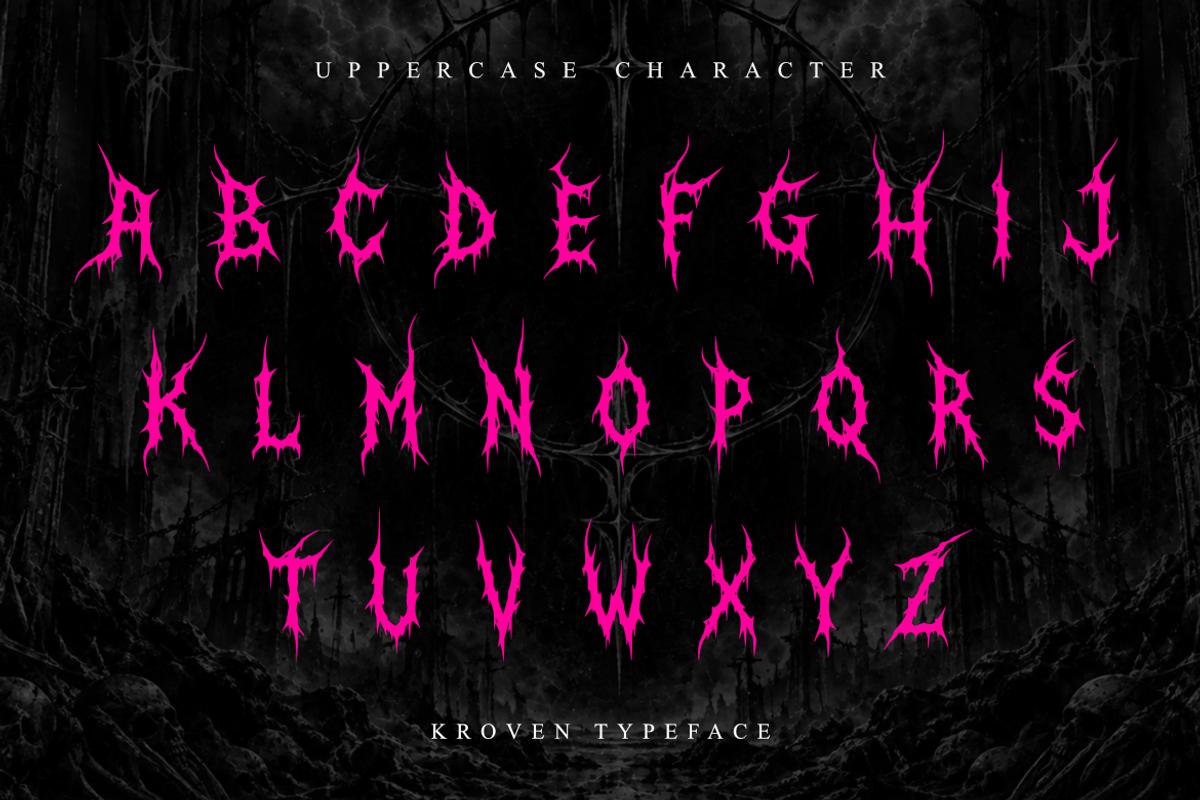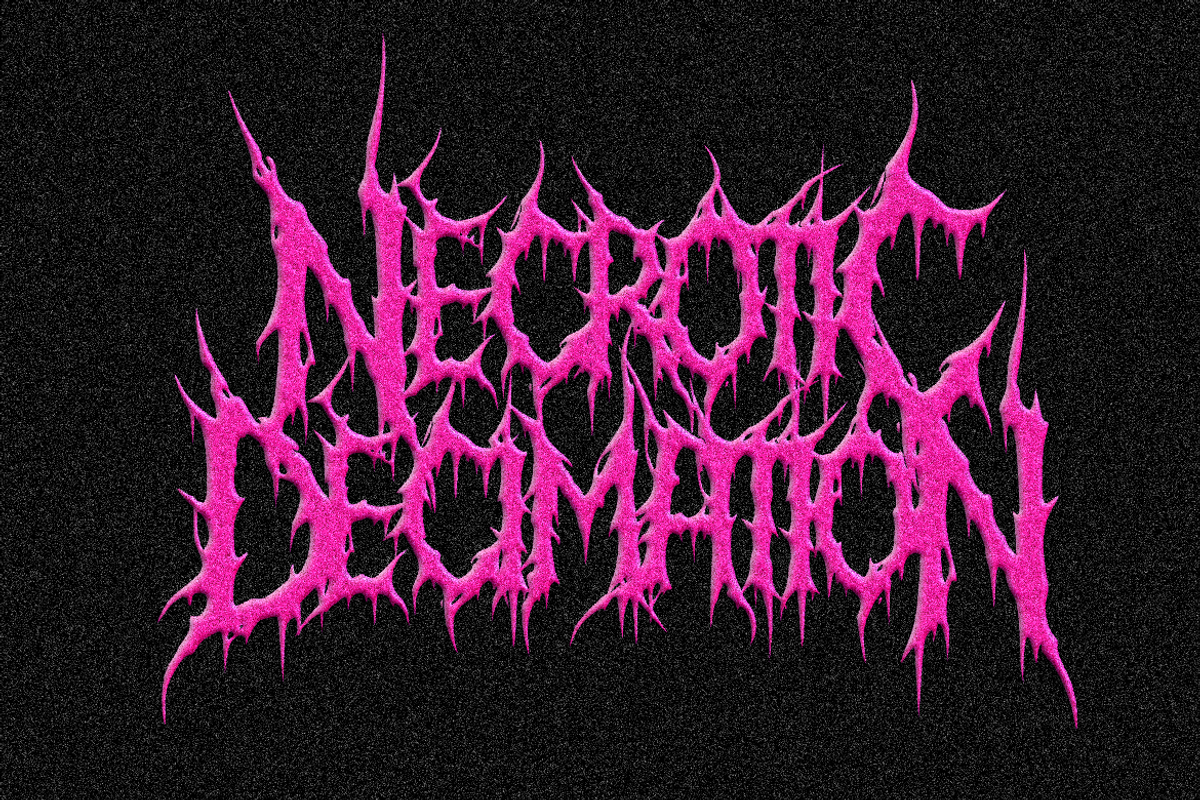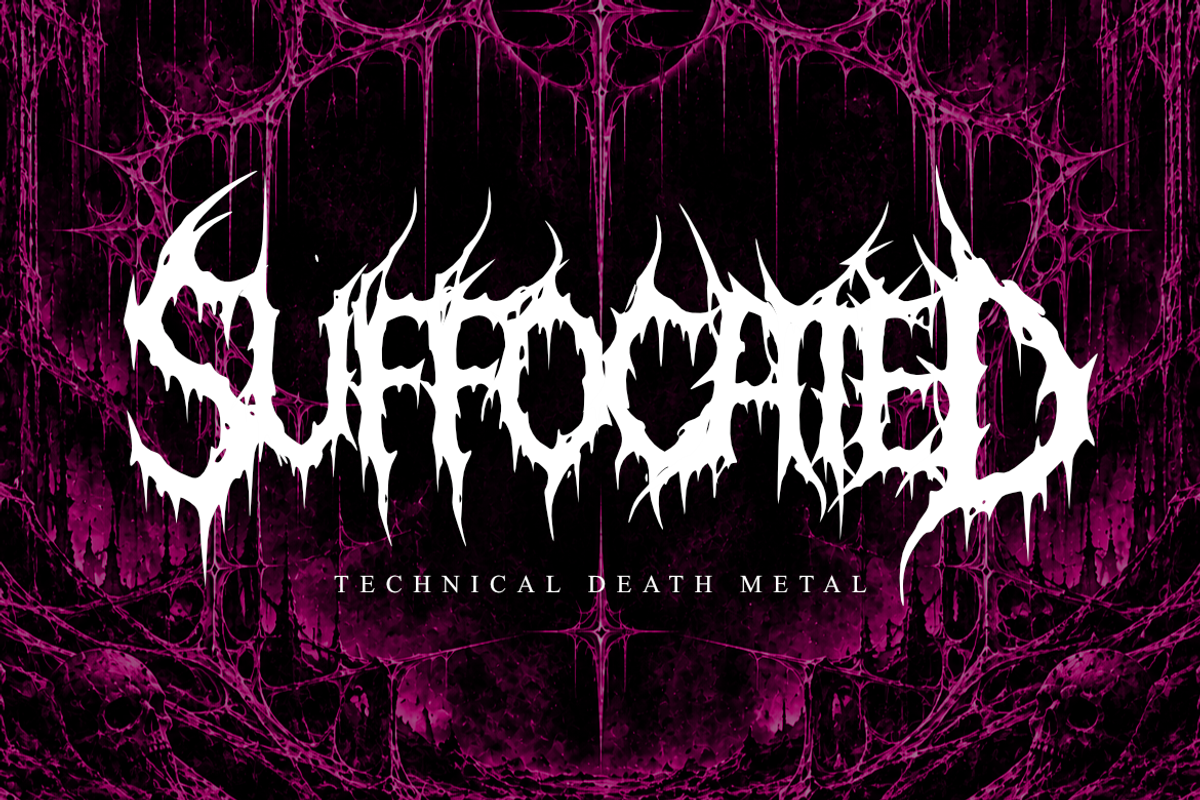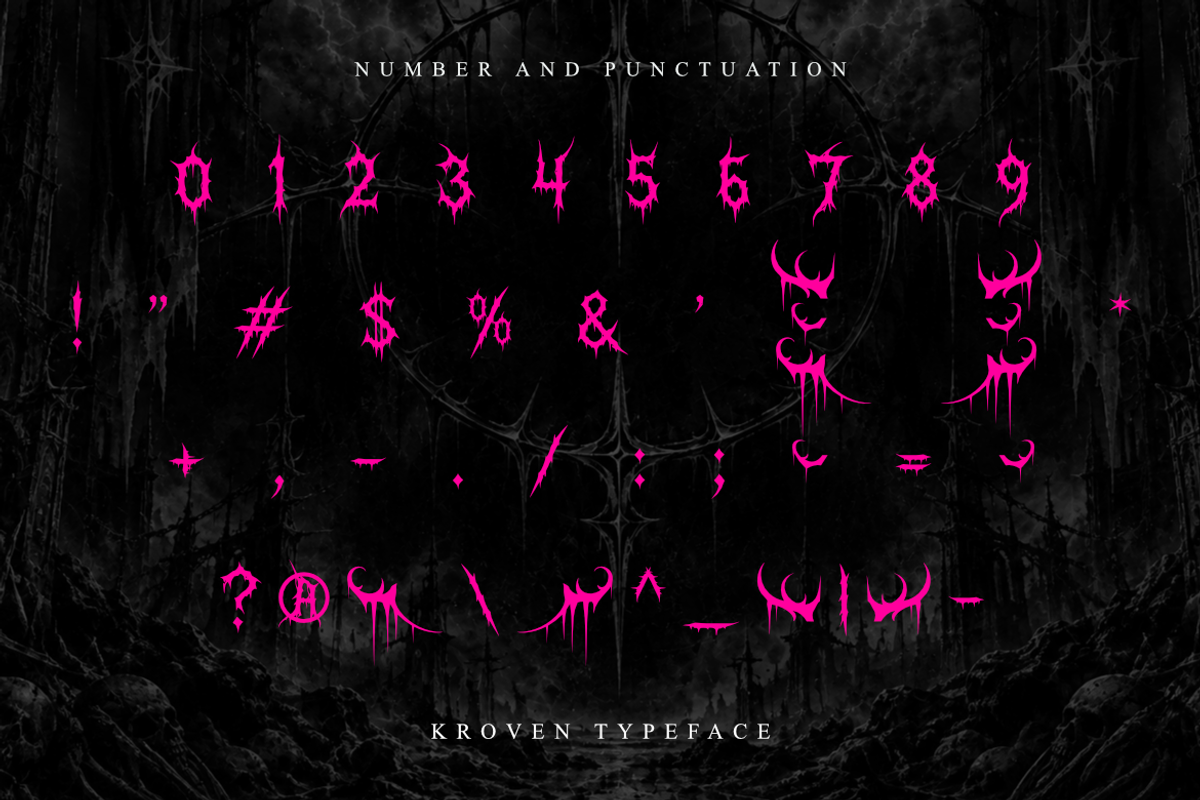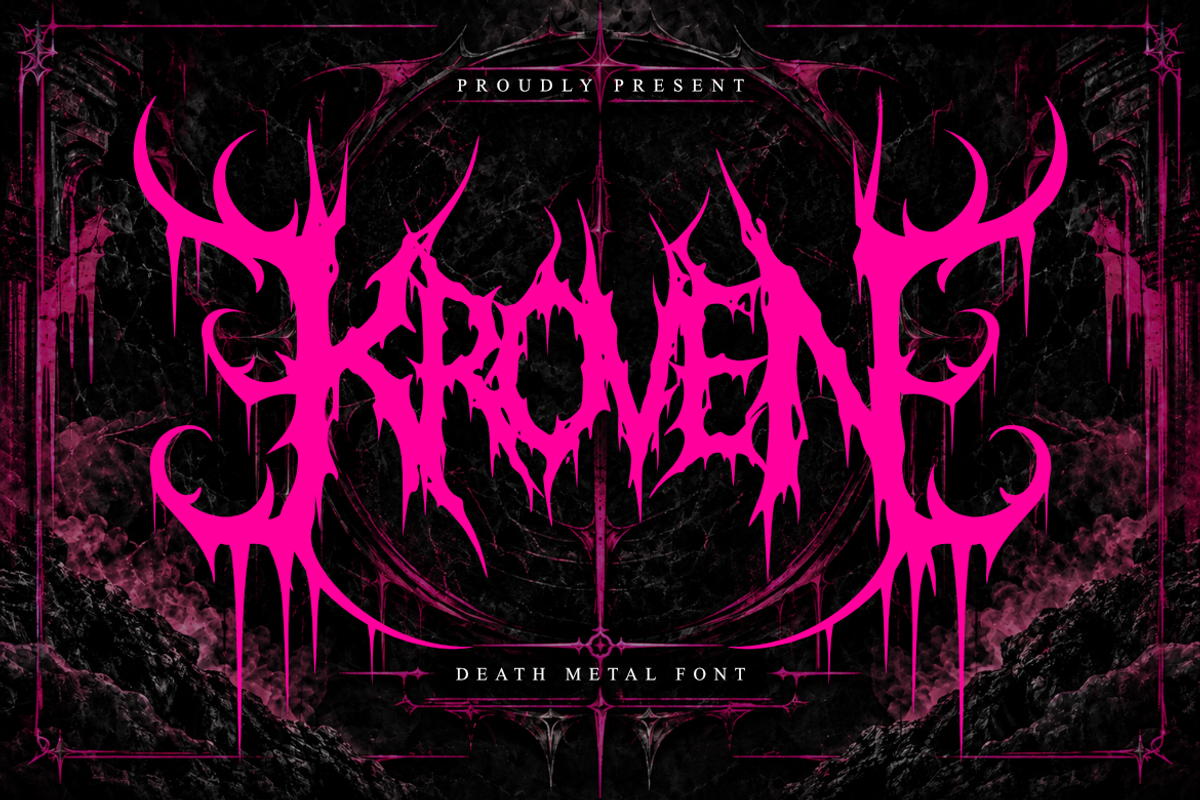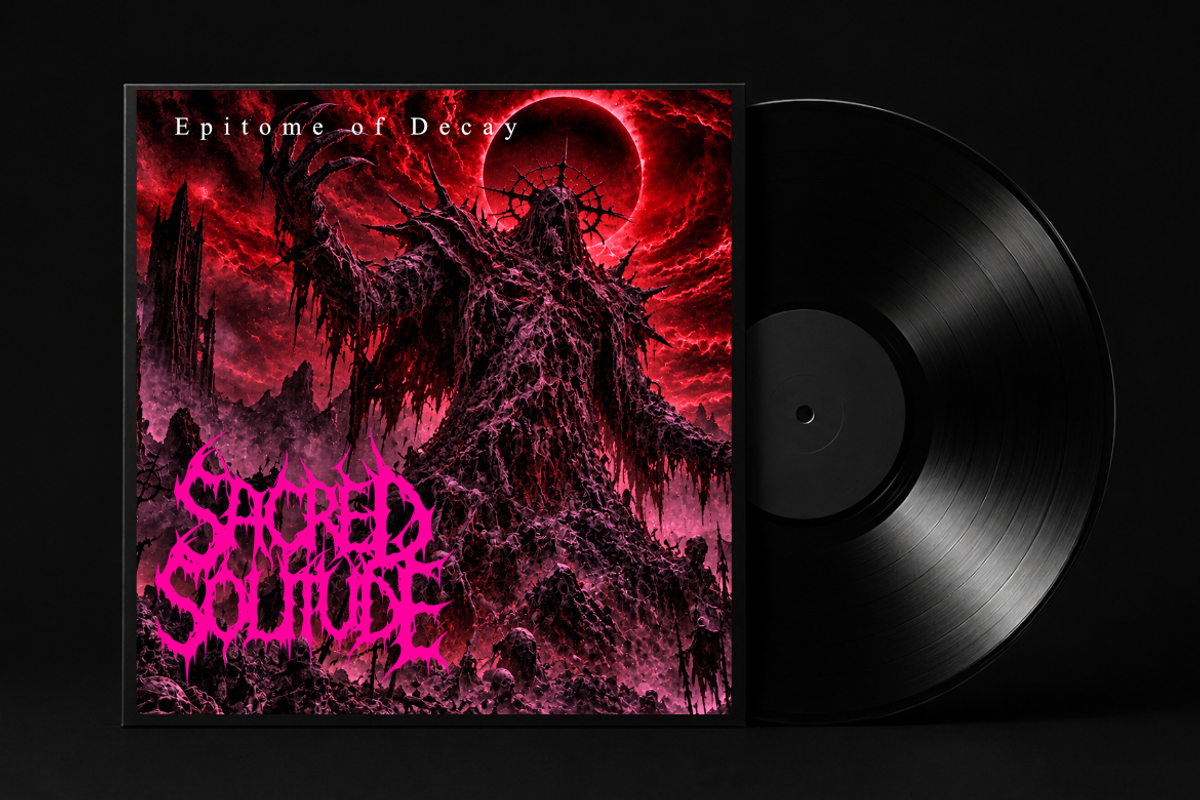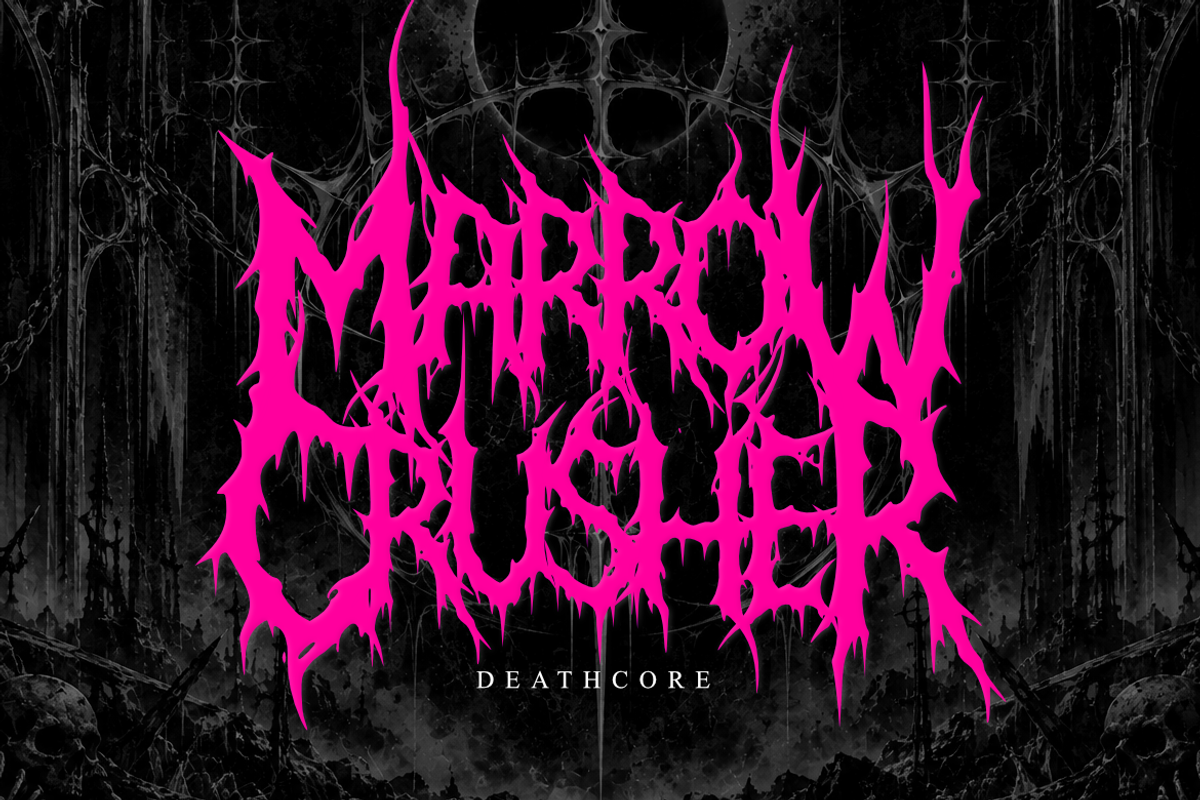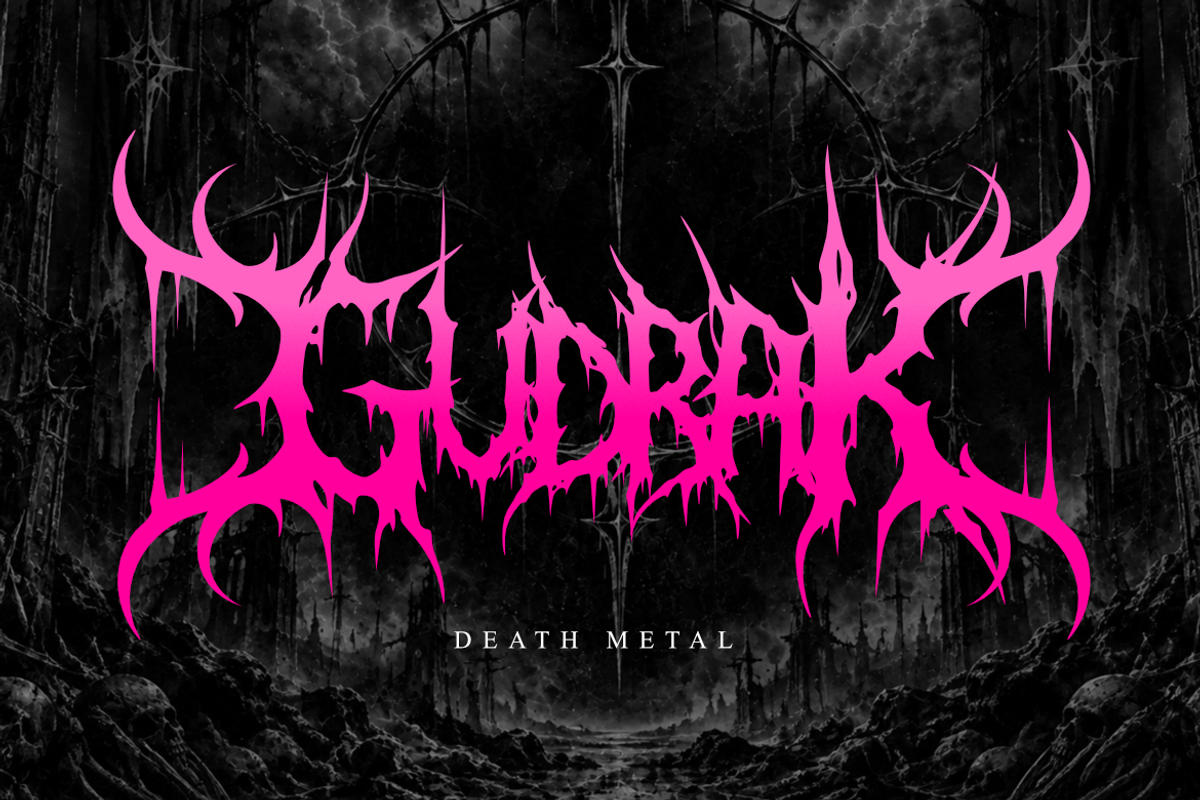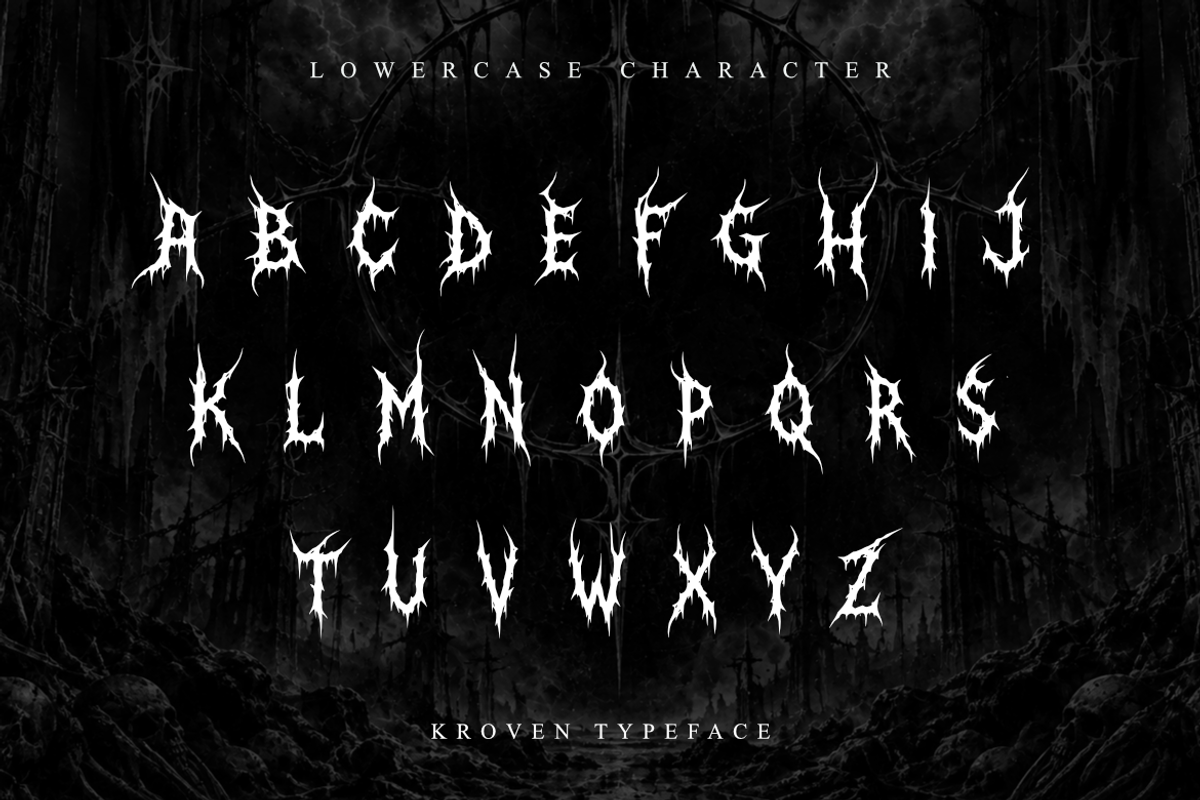
Kroven - Death Metal Font
Kroven is an extreme Death Metal display font crafted with razor-sharp forms, twisted curves, thorn-like extensions, and a highly symmetrical structure. Its aggressive letterforms create an intense visual presence inspired by dark gothic aesthetics, underground metal culture, occult artwork, and extreme music identity.
Designed to transform words into powerful visual compositions, Kroven features dramatic silhouettes and intricate details that work especially well at large display sizes. Its distinctive structure makes it ideal for death metal band logos, album artwork, horror titles, dark posters, gothic branding, music graphics, and other projects that demand an intense and sinister atmosphere.
Whether you're creating a brutal band identity, an underground music visual, or a dark editorial composition, Kroven brings a raw and extreme character to every letter.
Uppercase Letters
Sharp Gothic Letterforms
Symmetrical Display Style
Thorn-Inspired Details
Extreme Metal Aesthetic